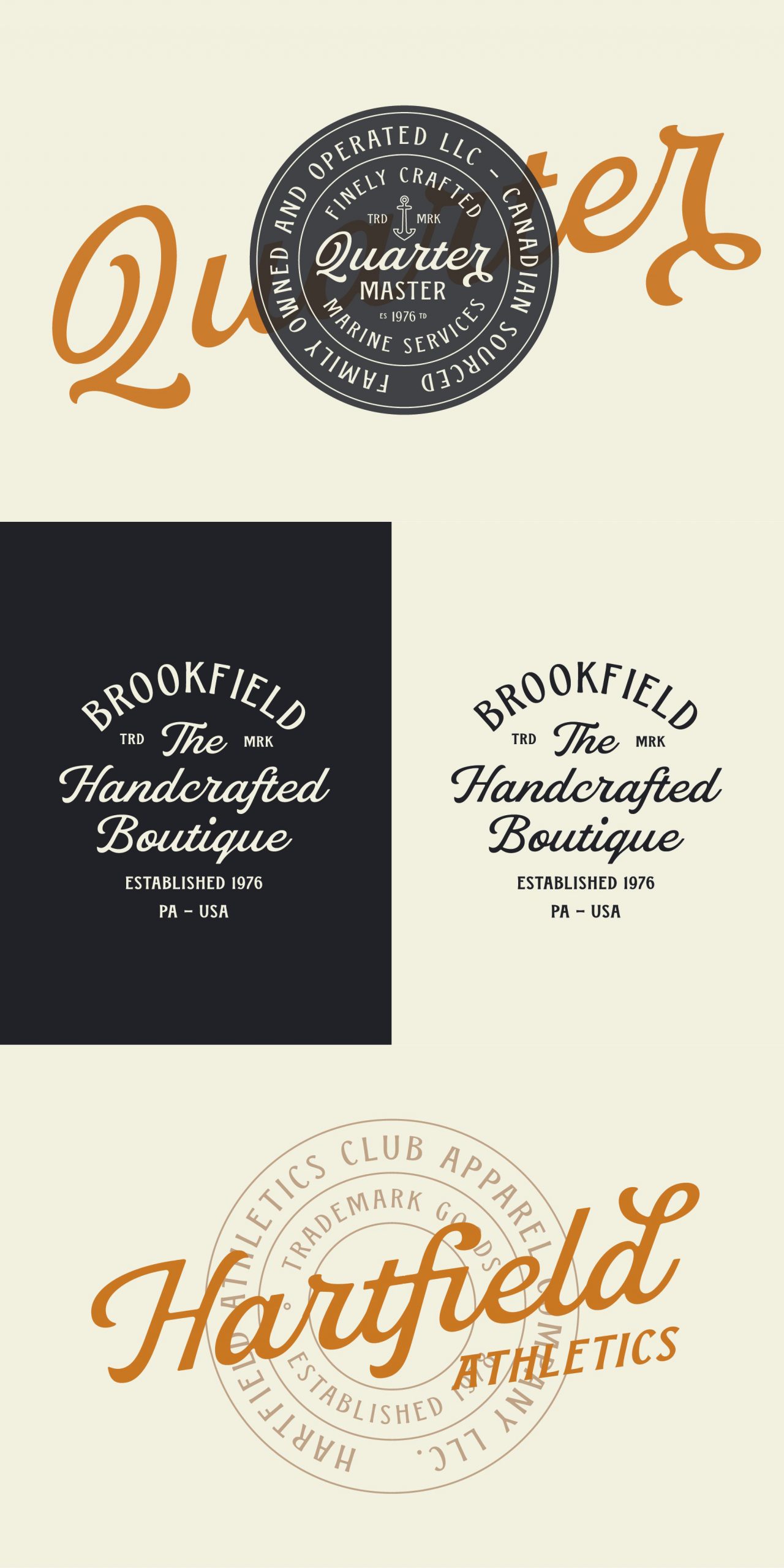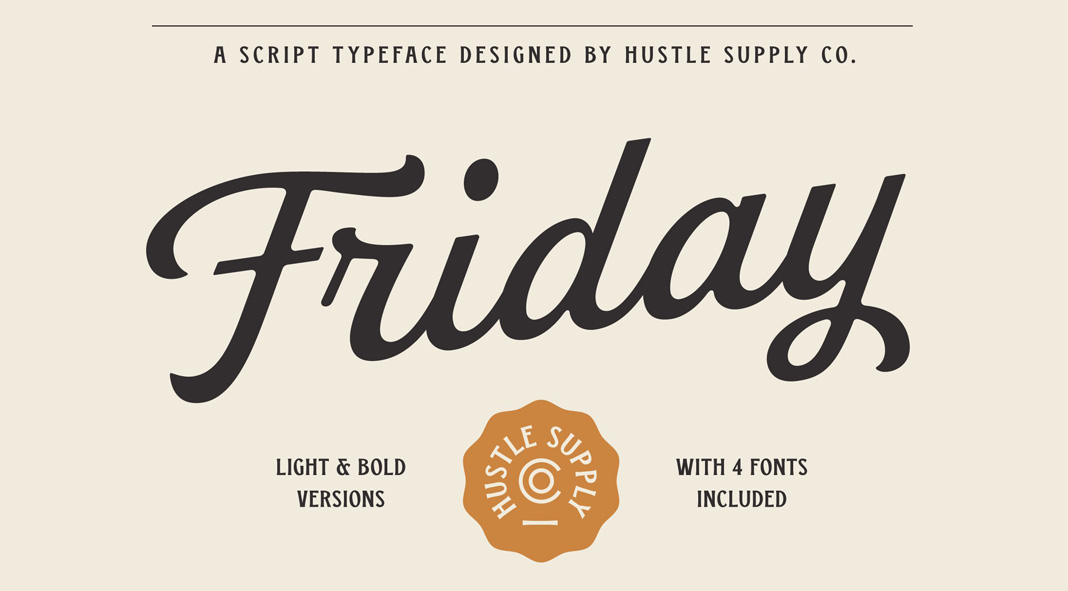
Say hello to Hustle Supply’s recently published Friday Script font, a vintage-inspired typeface.
With influences from good old vintage lettering, the Friday Script font is inspired by sign paintings, baseball, restaurant branding, and more. It comes with a great variety of swashy characters. Using this lovely vintage typeface, you can create headlines, logos, apparel designs, and more.